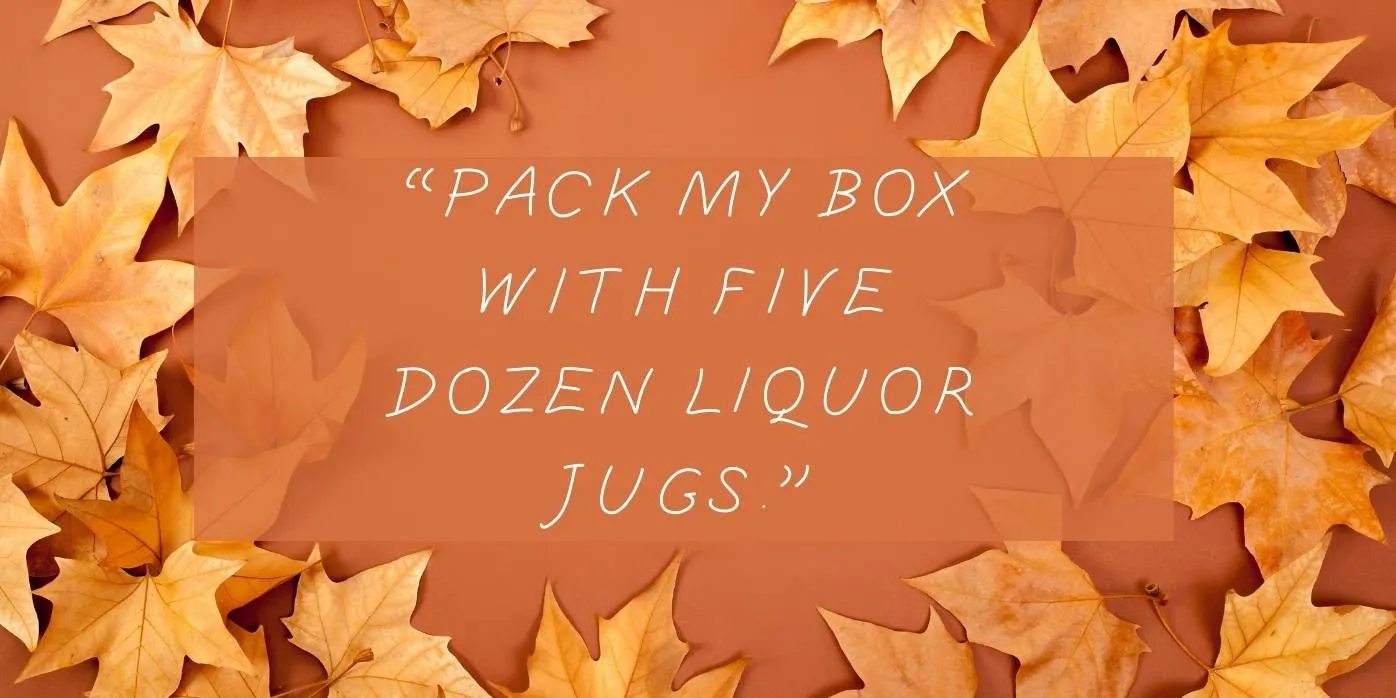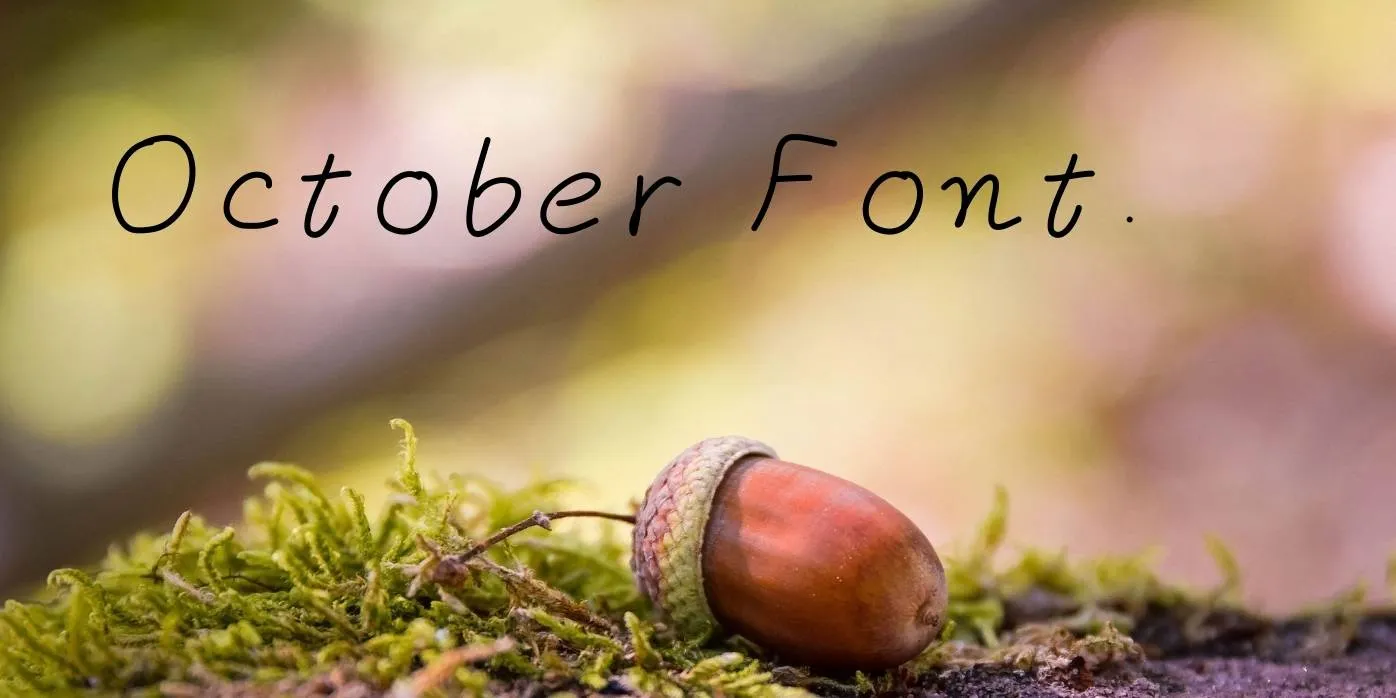
October Font
October font was designed by a famous designer known as Peter Bilak. This classy font is divided into four styles. It was in the year 2005 that this fascinating font was presented for the first time to the world. This font comes in unique Glyphs.
The font has been described as being modern and fashionable with a touch of classic which is why it comes in very handy when designing logos or any other kind of art Designed with a combination of thin and bold letters. Its copy and paste function is very useful. When the font was first launched, it has four different styles. It is a font free download that allows you to use this font for commercial purposes.
It comes in special characters almost 109. This typeface is best for Adobe. You can also use it similar font which is Amatic Font. This staggering Font does not include kerning but it uses standard ligatures and manually edited hinting making it an ‘outline’ typeface.